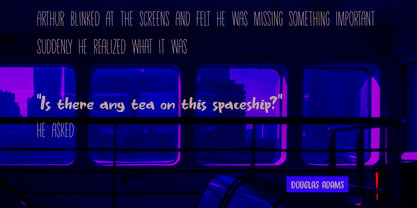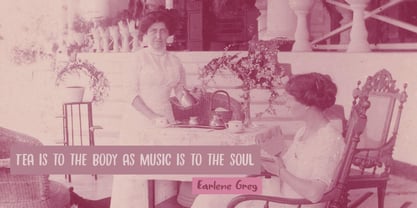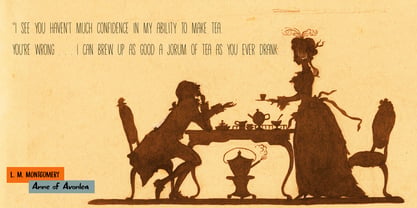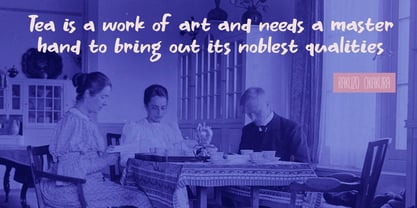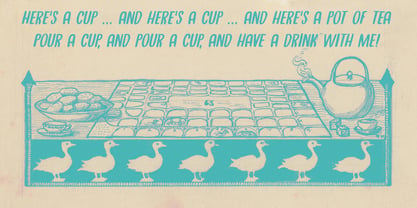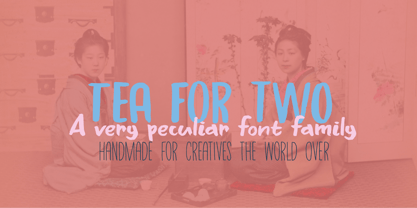
Tea For Two
by Hanoded
The Tea For Two Font Family was designed by David Kerkhoff and published by Hanoded. Tea For Two contains 6 styles and family package options. More about this family
My wife likes drinking tea a lot. I, on the other hand, prefer coffee. When I contracted covid (just before it became a 'thing', my tastebuds stopped working and coffee tasted like dishwater. I then started drinking tea, but - as a coffee loving person - I prefer my tea to be the English variety: nice and strong with lots of flavour. Tea For Two is a handmade font family. All three fonts (and their Italics) work nicely together, so let your creativity loose!
Hanoded is run by Dutchman David Kerkhoff. His fonts are a mishmash of styles, as he just creates whatever pops into his head. You will find a lot of brush fonts in his collection, as his favourite tools are brushes and Chinese ink, with cartoon style fonts and script fonts complementing his repertoire. Aside from making fonts, David occasionally guides tours in far-flung places, renovates his '30's house and tries reasoning with his wife and (teenage) kids. Not an easy task!